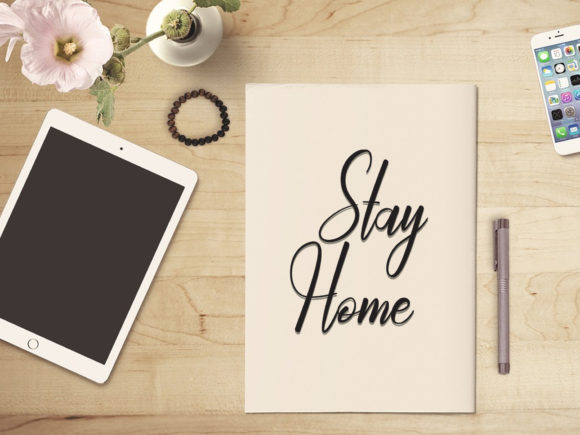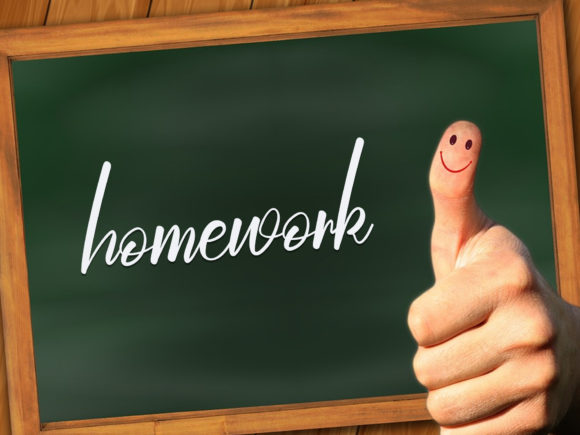
Smile Font
db-ku.com - Script & Handwritten -- Smile is a beautiful handwritten font that is carefully crafted to produce cool and gorgeous designs. This font can be used to write letters, invitations, food products and more.